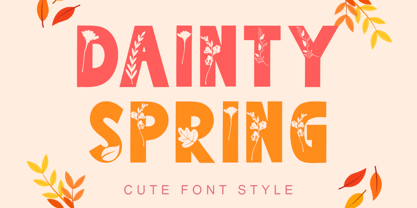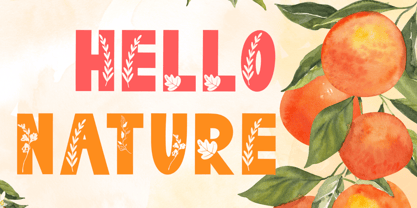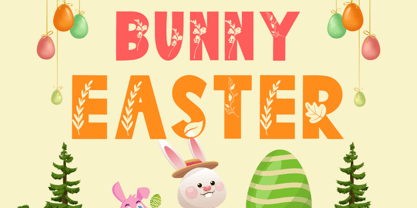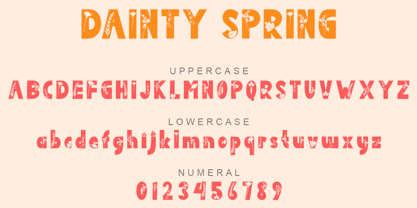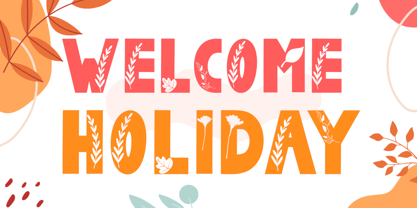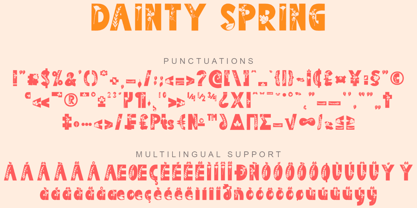
Dainty Spring
by Yoga Letter
The Dainty Spring Font Family was designed by Isroni Yoga Prasetya and published by Yoga Letter. Dainty Spring contains 1 styles.
"Dainty Spring" is a cute and beautiful display font. This font is equipped with uppercase, lowercase, numerals, punctuations and multilingual support. Very suitable for use for spring, easter, summer, holiday, vacation, print, banner, branding, sticker, poster, procreate and others.